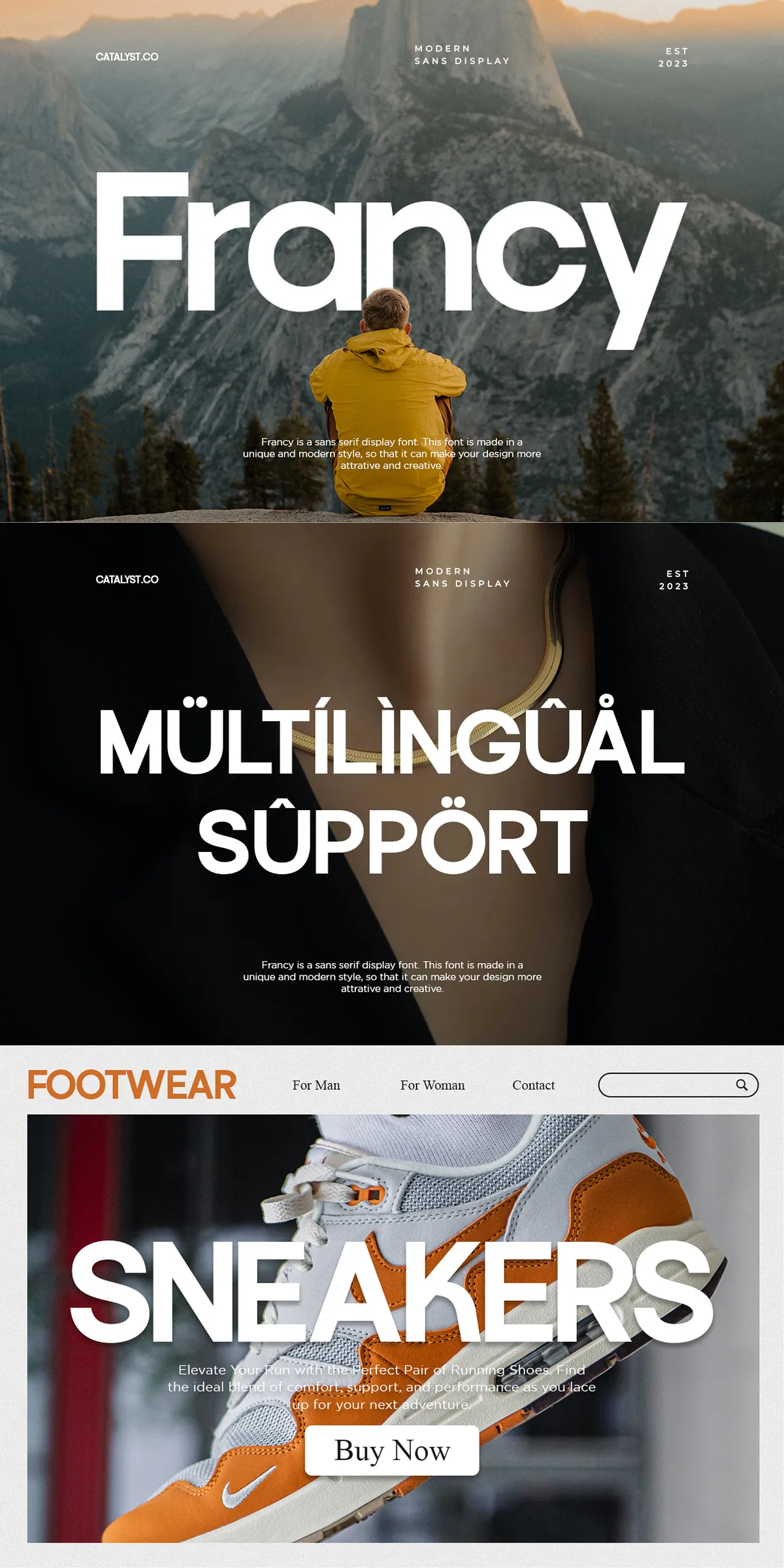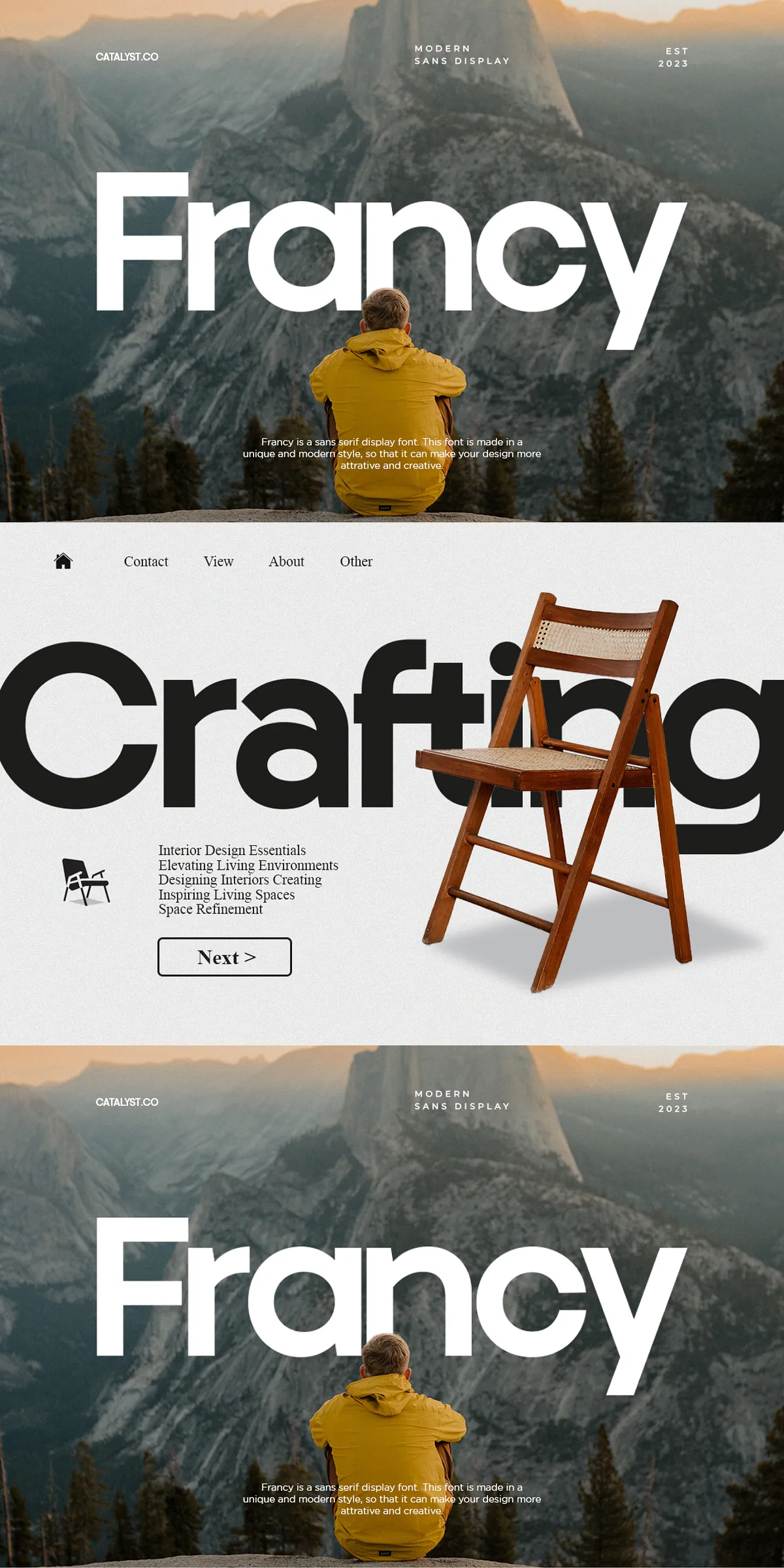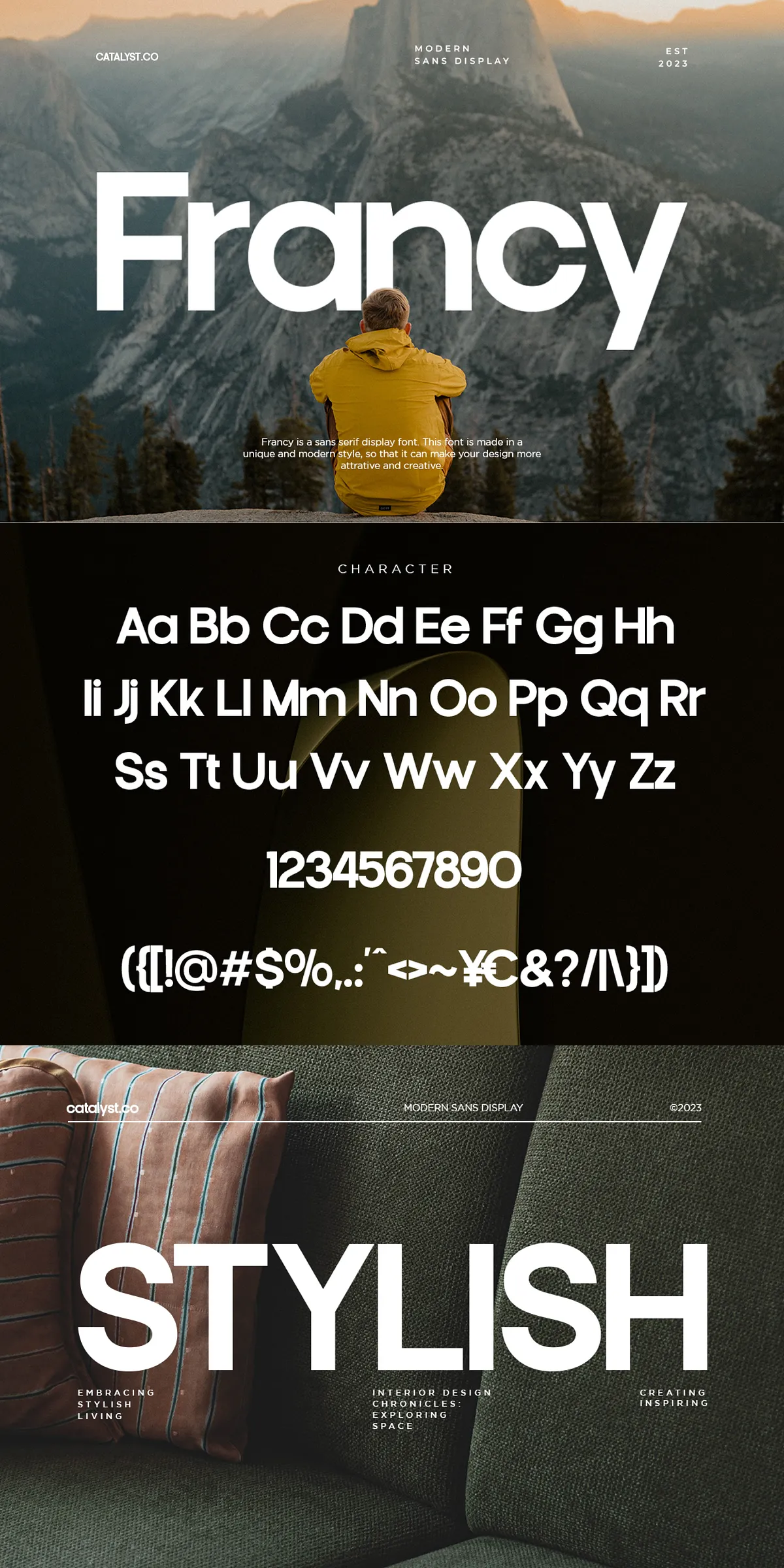
Whether you’re crafting a bold quote, designing a high-impact logo, or setting a striking magazine header, Francy is engineered to deliver instant visual power. This modern sans display typeface blends clean lines with a confident, contemporary edge — a perfect match for designers who demand clarity, edge, and personality in every character.
Powerful Design, Precision Engineered
Francy doesn’t just sit on the page — it commands it. With its sharp geometry, open counters, and balanced proportions, Francy guarantees maximum legibility even at large sizes. Its clean, uncluttered structure ensures your message cuts through the noise with precision, making it ideal for branding, editorial layouts, and digital content where first impressions are everything.
But Francy isn’t just clean — it’s alive. The inclusion of ligatures and alternate glyphs adds a layer of sophistication and character. These hand-crafted variations let you subtly differentiate your typographic voice — whether you’re refining a logo for a luxury brand or adding flair to a music cover. Access these alternates via your design software’s glyph panel for seamless integration.
Full Feature Set for Real-World Design
Designed with professional workflows in mind, Francy comes packed with everything you need to bring your ideas to life:
- Complete Character Coverage: Full uppercase and lowercase lettering, numerals, punctuation marks, and essential symbols — ensuring your text is typographically complete.
- Global Readiness: Multilingual support allows you to create content in multiple languages without compromising design quality — perfect for international brands, publications, and digital platforms.
- Design Flexibility: Use Francy across a vast range of applications: from packaging and advertising to social media graphics, websites, and editorial design.
Where Francy Shines — Real-World Applications
Francy thrives in environments where style meets function:
- Logotype & Brand Identity: Stand out with bold, modern typography that captures your brand’s personality instantly.
- Quote Text & Motivational Graphics: Turn powerful statements into visual masterpieces with a font that matches their intensity.
- Magazine & Editorial Headlines: Command attention with headlines that feel modern, dynamic, and editorially sharp.
- Product Packaging & Advertising: Create striking visuals that stop the scroll and elevate your product’s perceived value.
With Francy, you’re not just selecting a typeface — you’re adopting a design partner. It’s built for creators who value performance, versatility, and visual integrity.
Why Francy Stands Out in a Crowded Market
In a world saturated with generic fonts, Francy brings something rare: purposeful modernity. It’s not flashy. It doesn’t rely on gimmicks. Instead, it delivers strength through restraint, clarity through design discipline, and impact through intelligent structure.
It’s the font that doesn’t beg for attention — it earns it.